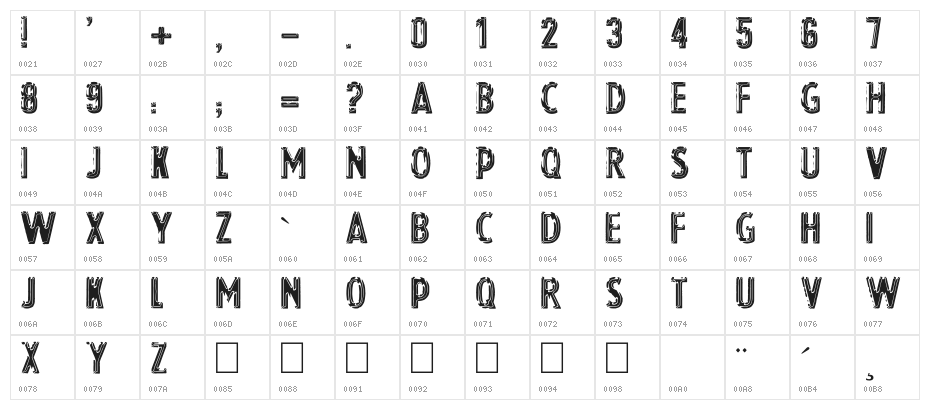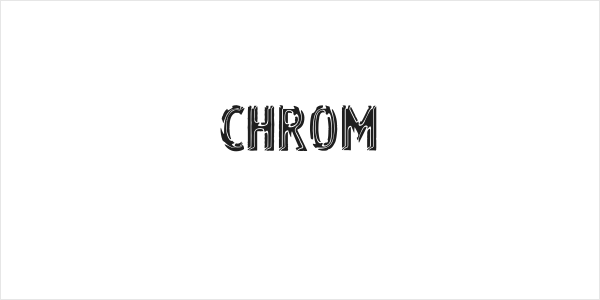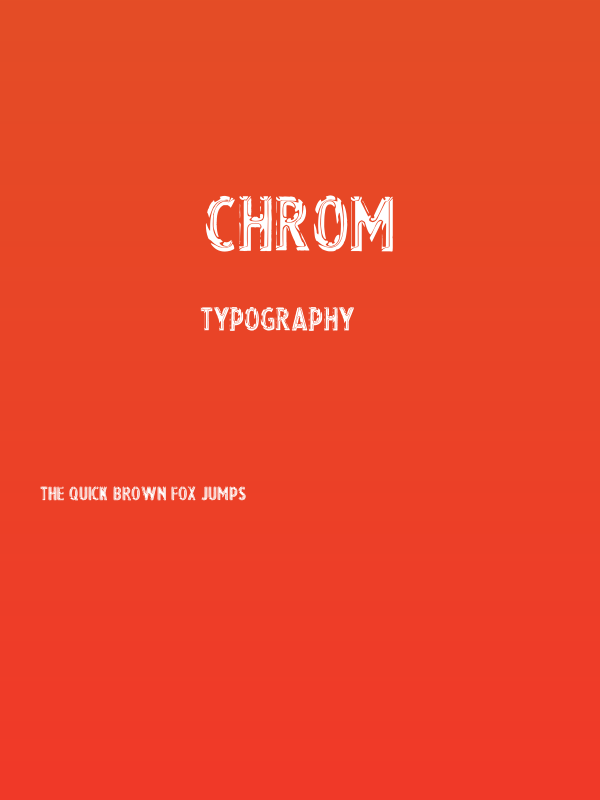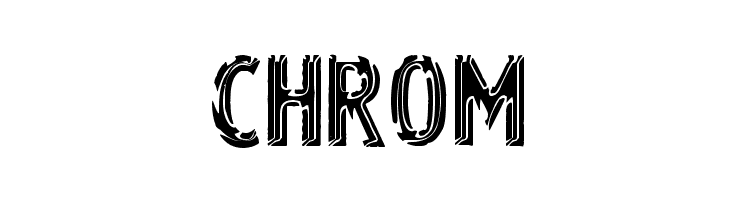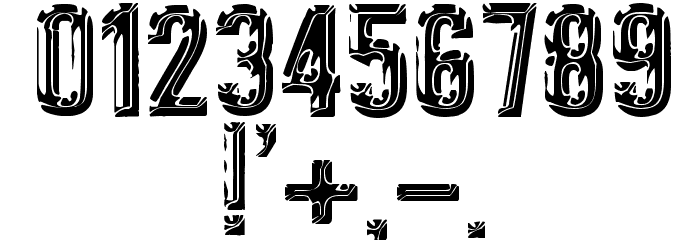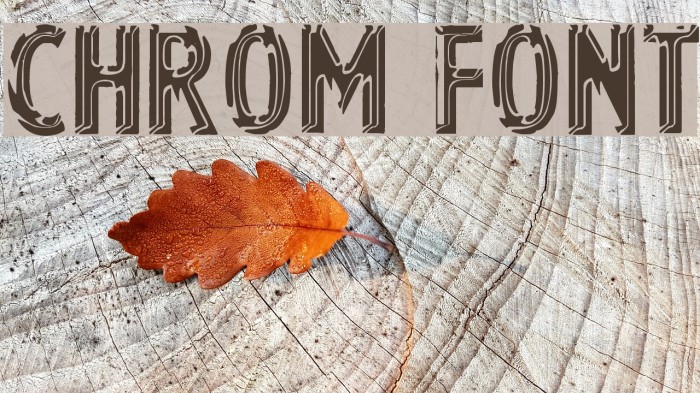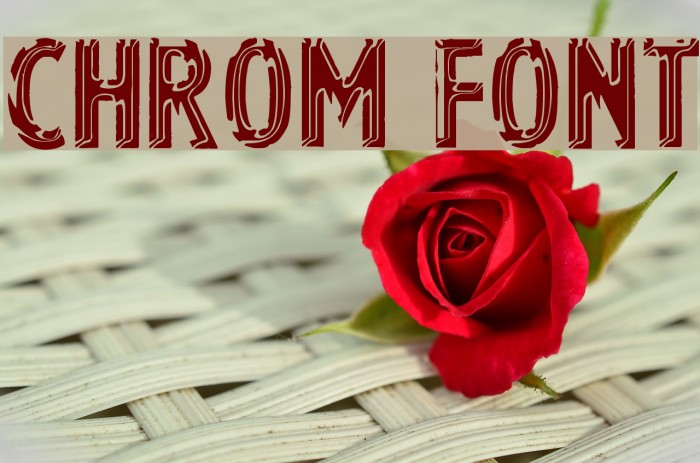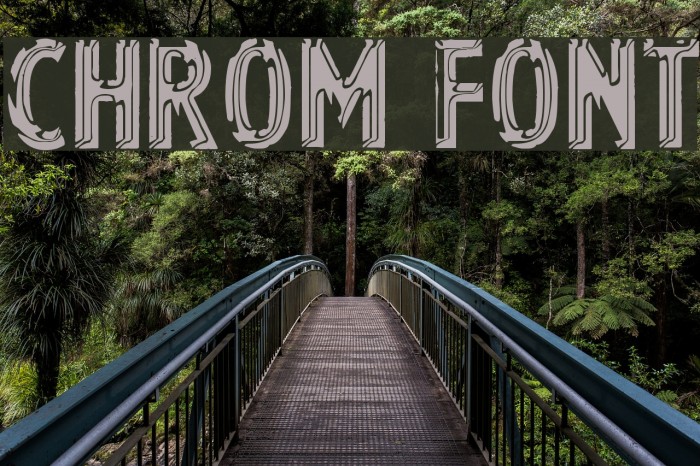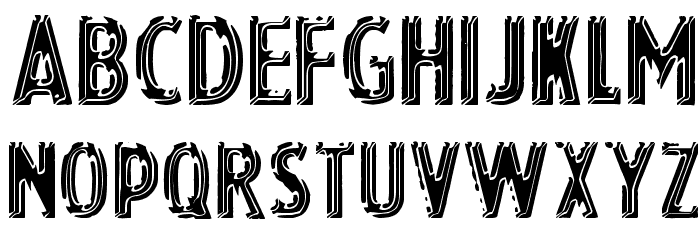
Chrom Font
Chrom Description
This font features a bold, decorative style with a distinct three-dimensional effect. Each character is designed with a shadowed outline, giving it a layered appearance that stands out. The uppercase letters are prominent and commanding, while the lowercase letters maintain the same boldness, ensuring consistency across text. The numerals are equally bold, matching the style of the alphabetic characters. Special characters are included, maintaining the same decorative flair. The overall design is reminiscent of vintage signage, making it ideal for projects that require a strong visual impact.
| Proposed Projects | Ideal for vintage-themed posters, signage, branding, and any project requiring a bold, eye-catching typeface. |